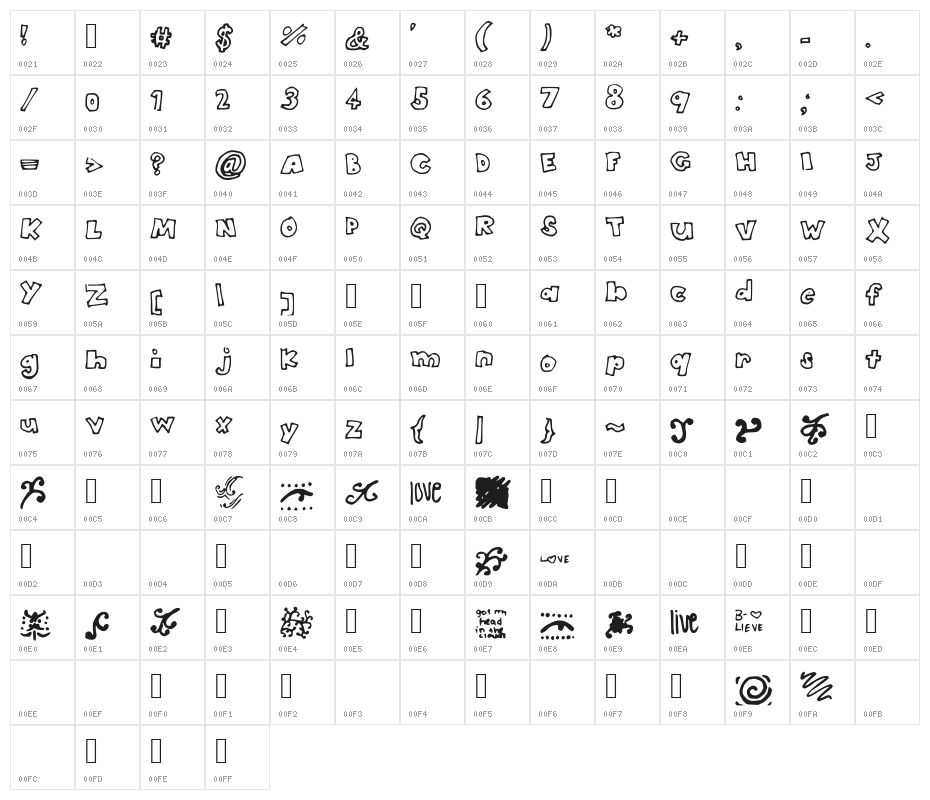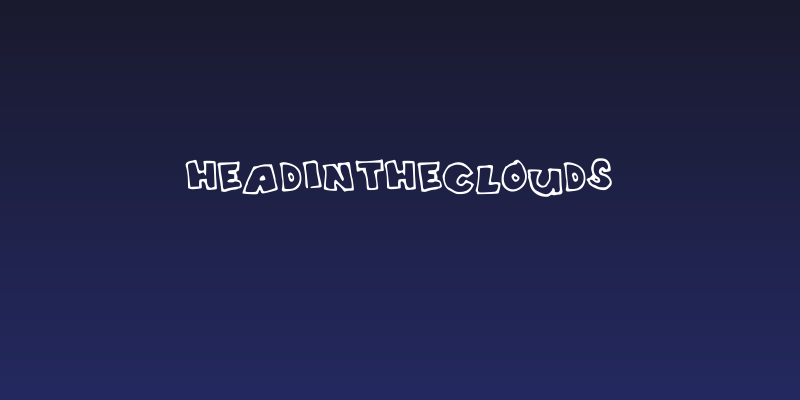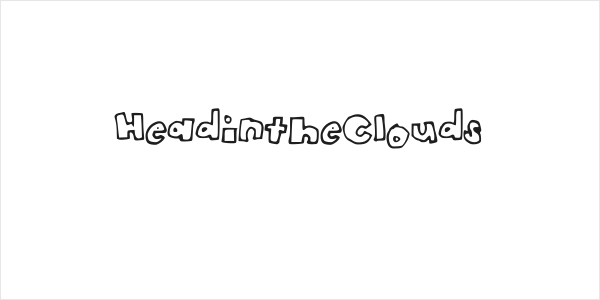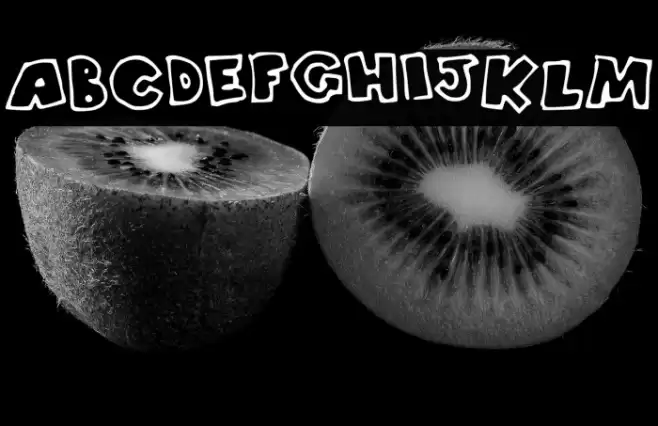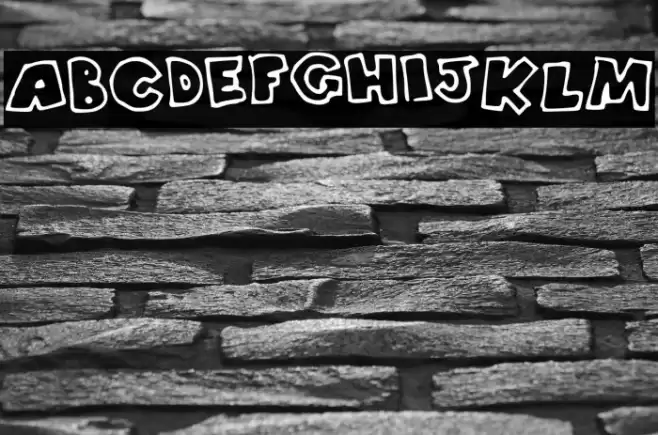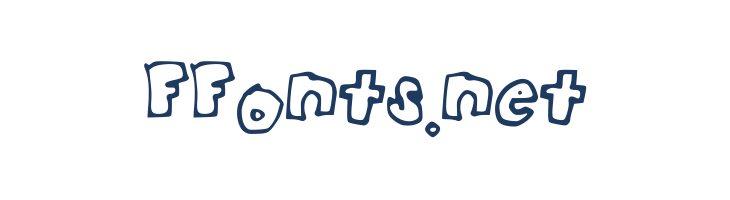
HeadintheClouds Font
This playful and whimsical font features bold, rounded characters with a hand-drawn appearance. Each letter is outlined, giving it a cartoon-like feel that is both fun and approachable. The characters have an irregular, bouncy baseline, adding to the casual and informal style. The numbers and special characters maintain the same playful aesthetic, making this font suitable for creative and lighthearted projects. Its unique style captures attention and adds a sense of fun to any design.
| Overall Style | Whimsical, Playful, Fun |
| Proposed Projects | Ideal for children's books, comic strips, playful branding, party invitations, and creative posters. |